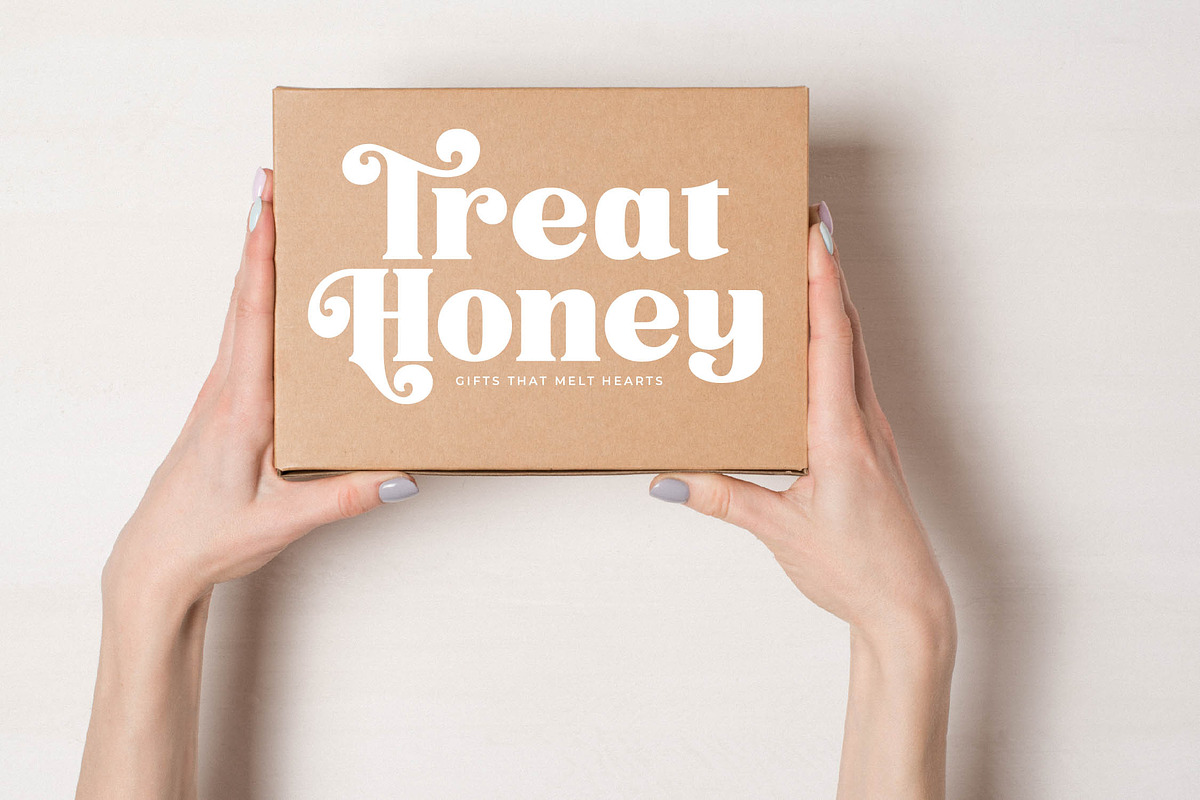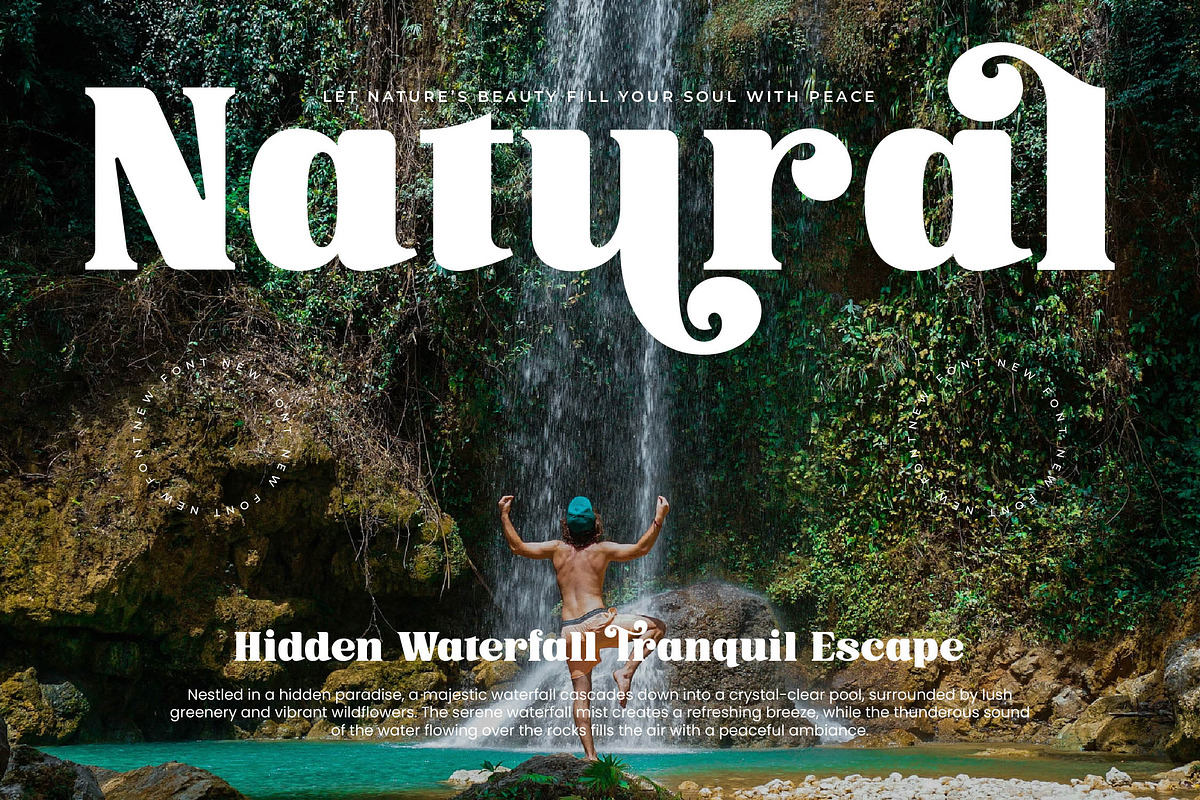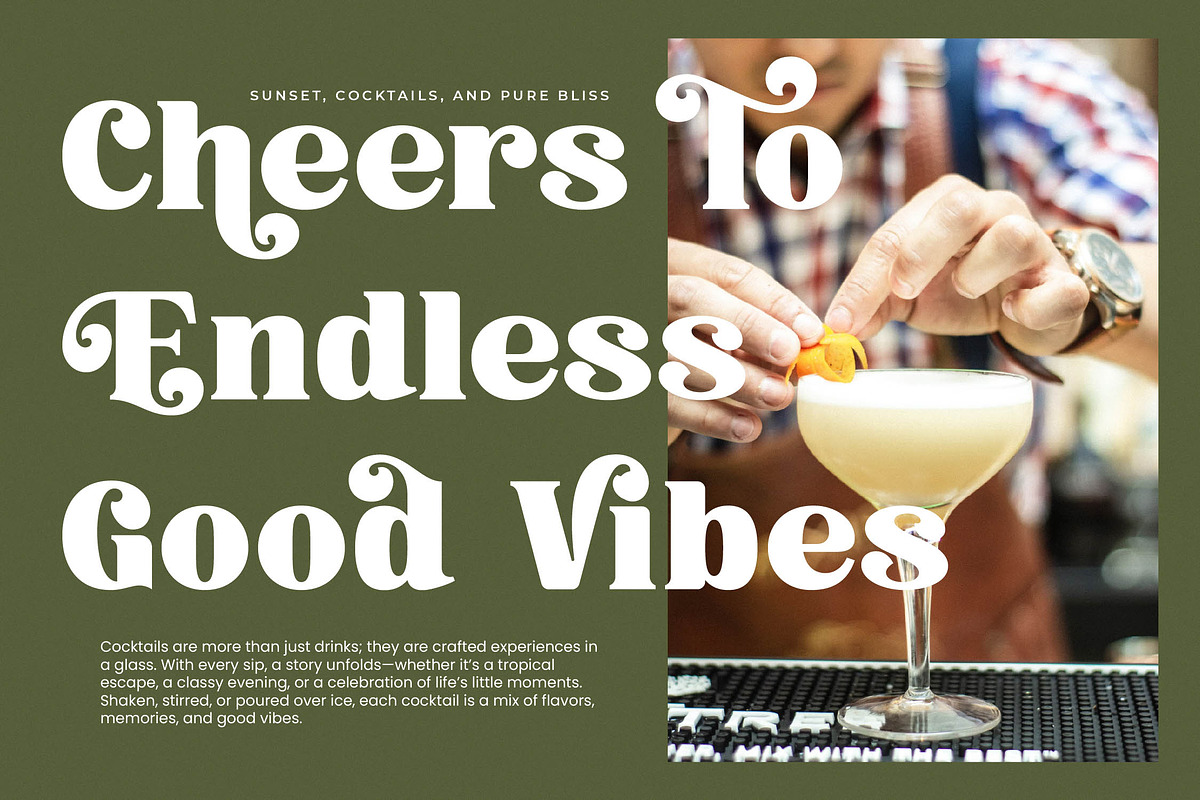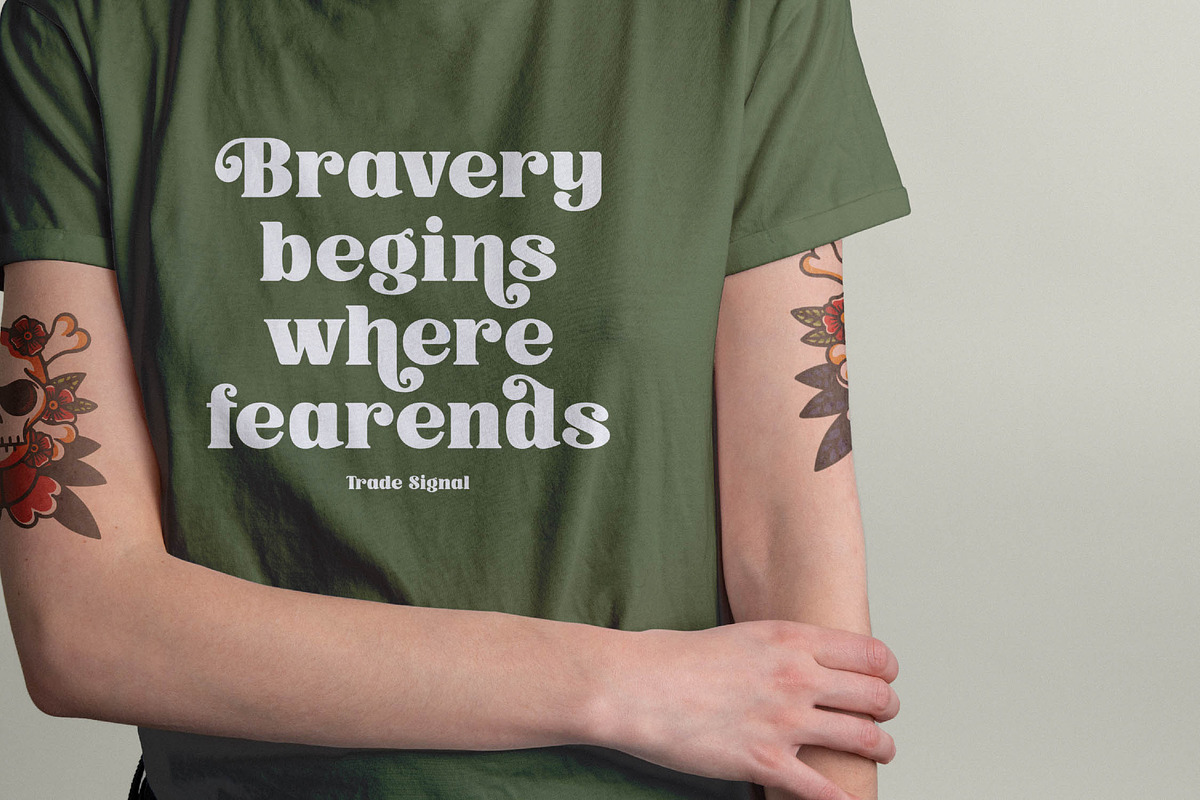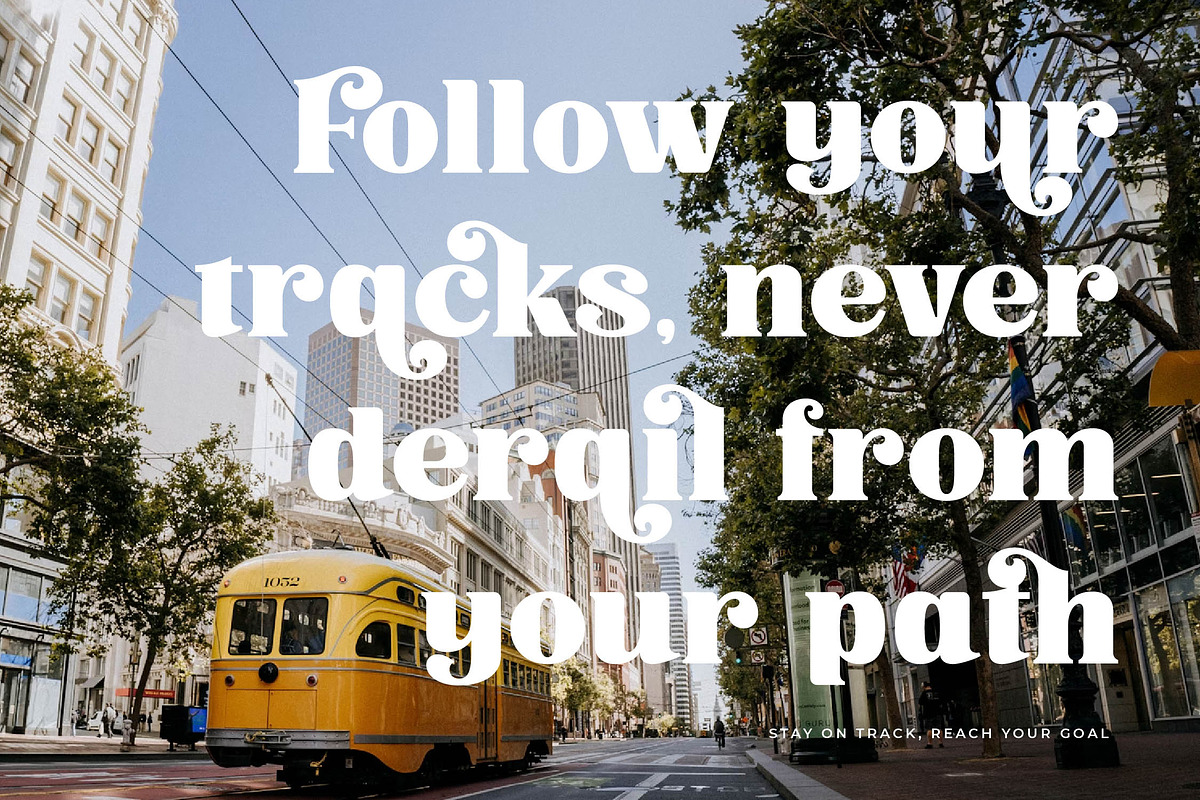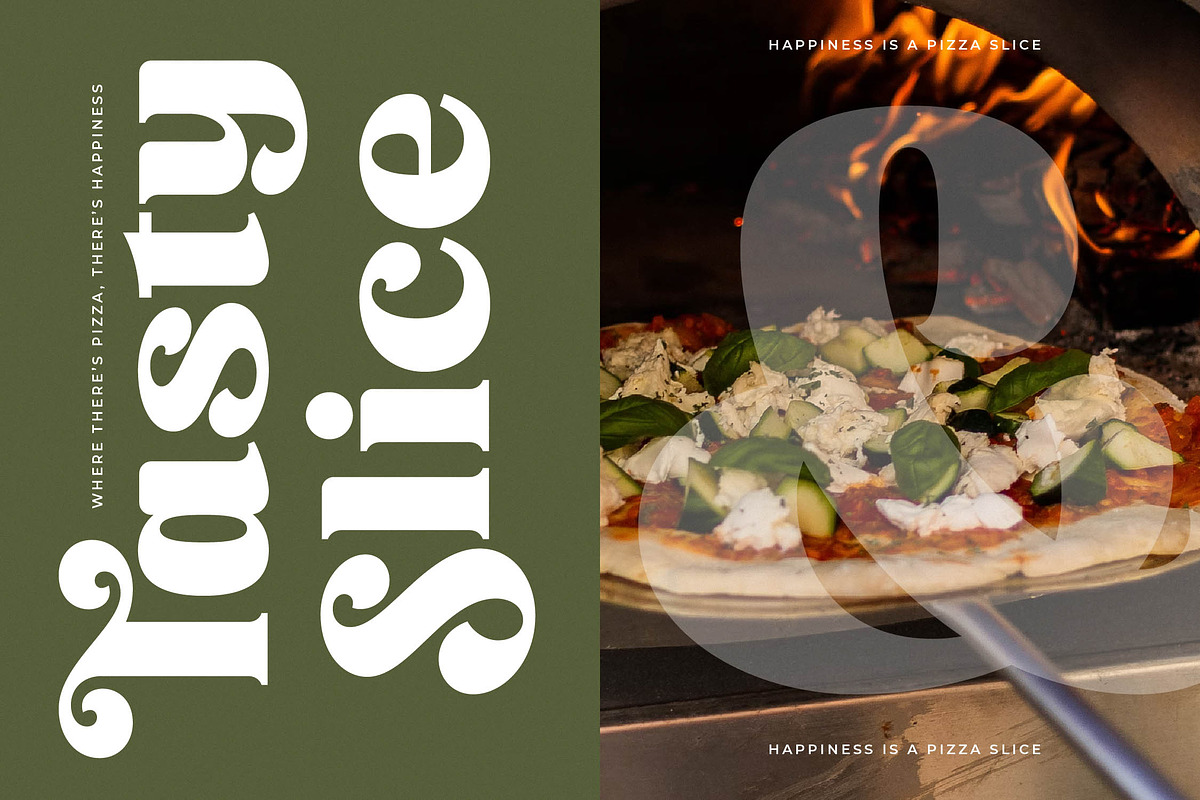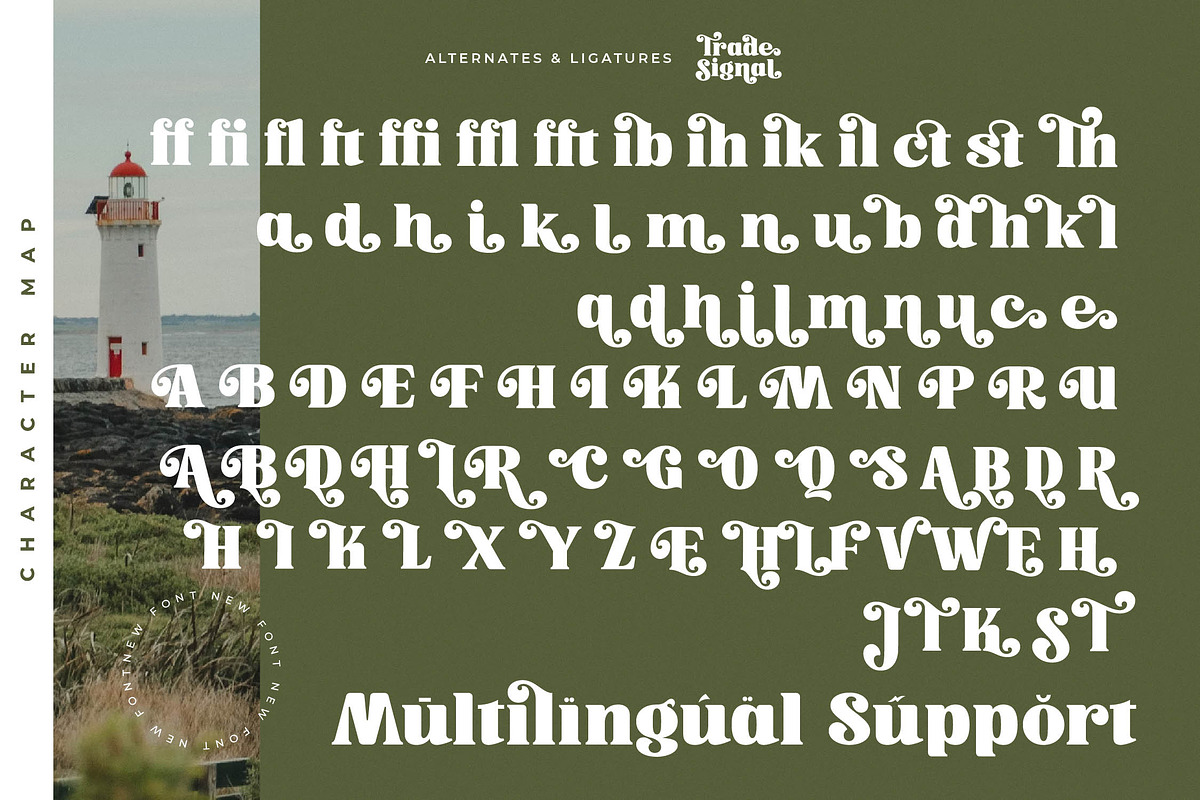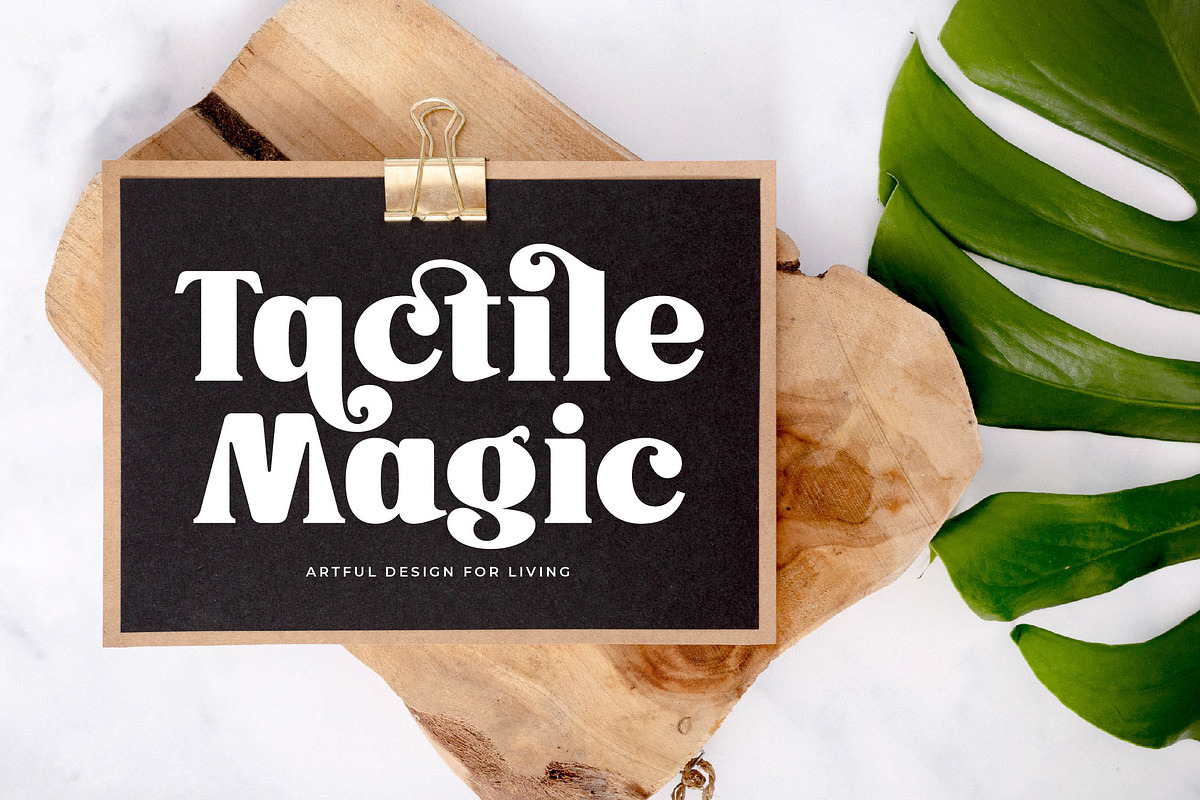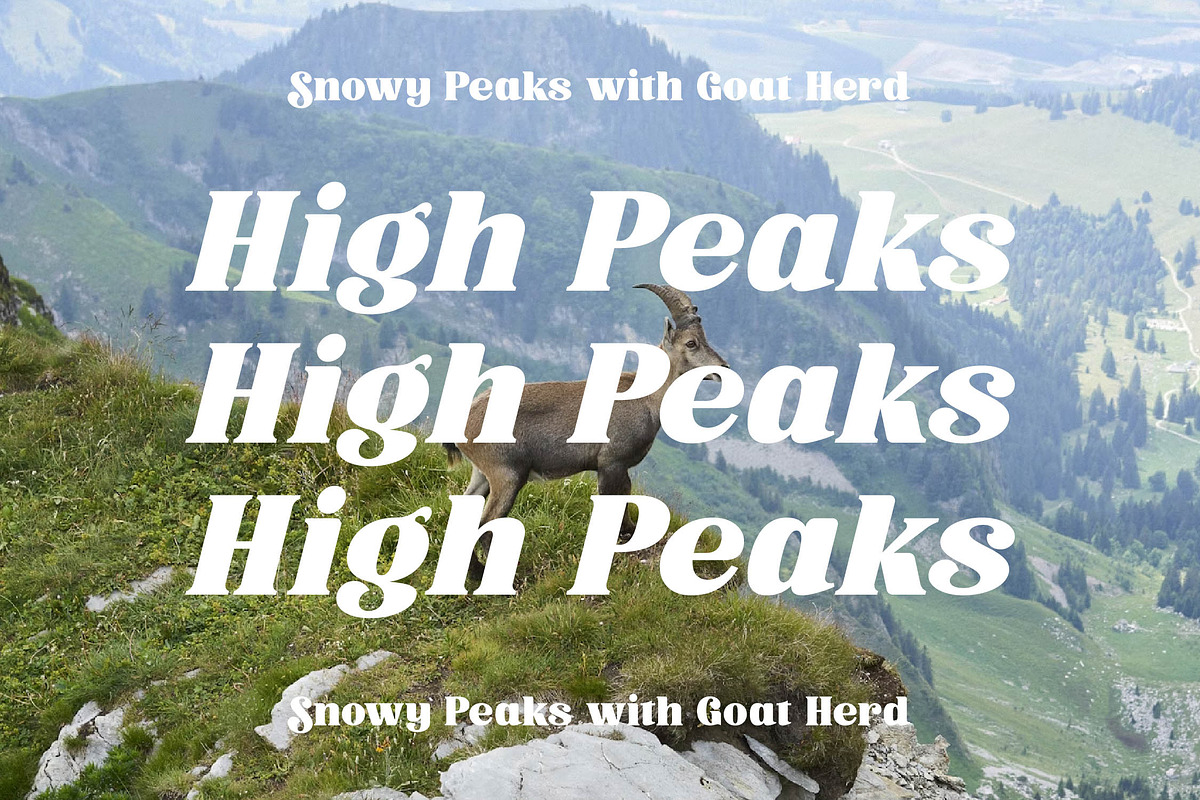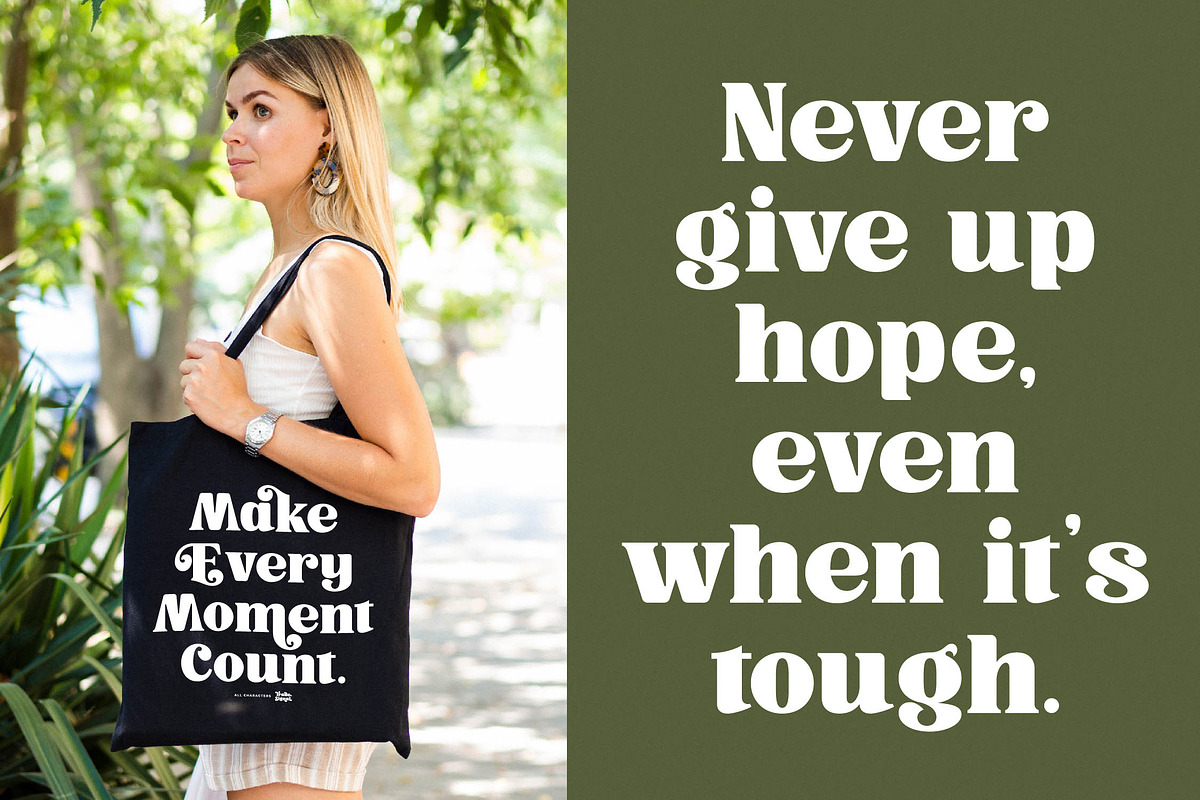
Trade Signal Modern Bold Serif
Experience the timeless allure of Trade Signal, a font that captures the rhythmic dance of the tides with every bold and sweeping stroke. This display serif is designed to stand as a beacon of elegance, offering a sophisticated anchor for your most ambitious creative projects.
Drawing inspiration from the stoic lighthouses that guard the coastline, this typeface reflects the strength and clarity needed to cut through the noise of generic design. It evokes a sense of nostalgic wanderlust mixed with contemporary sophistication, mirroring the vast and beautiful horizon of the open sea.
As a modern serif display, this typeface commands attention through its luxury typography and thick, rhythmic curves. Its high-contrast serif construction ensures a massive branding impact, making it the perfect editorial font for those who wish to tell a visual story that feels both classic and cutting-edge.
Riding the wave of the current modern serif trend, this typeface brings a fresh perspective to editorial display fonts by blending vintage charm with a crisp, digital-ready finish. Its focus on character-driven typography allows designers to create unique visual identities that resonate with the popular aesthetic of new-nostalgia.
Whether you are crafting a high-end logo design or building a cohesive branding suite, this font excels in editorial layouts and luxury packaging. It adds a touch of romanticism to wedding invitations and brings an avant-garde edge to high-stakes fashion magazine spreads and retail signage.
Unlock endless creative possibilities with 14 unique ligatures and 75 stylistic alternates that allow for deep typographic customization. The set includes beautiful swashes for a decorative touch, alongside comprehensive multilingual support for various international characters to ensure your message reaches a global audience.
- Ligature 14 Alternate 75